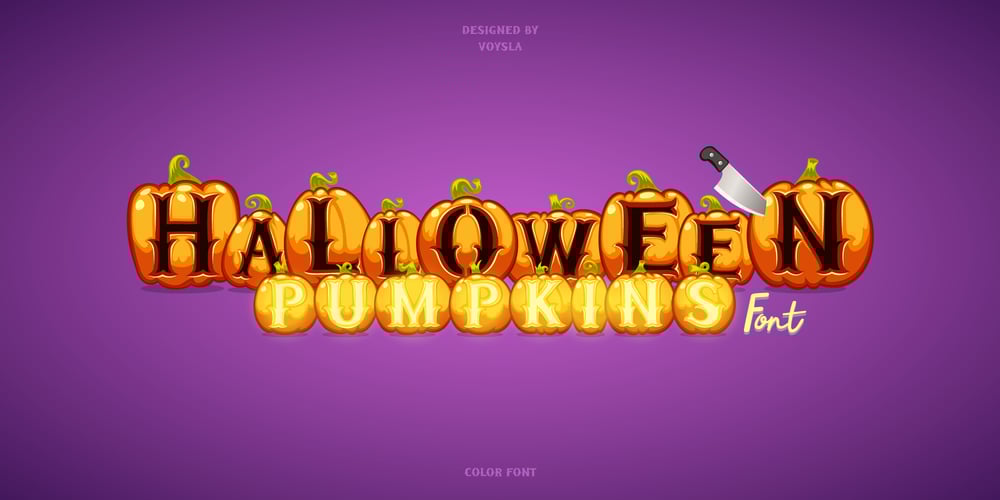
Halloween Pumpkins Font Family was designed by Viachaslau Vaitsenok and published by Voysla. Halloween Pumpkins contains 6 styles and family package options. Hey! Happy Halloween Pumpkins! πππThis is a family of colored fonts “Halloween Pumpkins” in four styles (regular, glowing with and without Halloween pumpkins).PLEASE NOTE that in order to work with color fonts, you will need one of the listed applications – Photoshop CC 2017, Illustrator CC 2018, or Procreate 4.3 or later. It is also supported by some web browsers and text editors. You can read more about color fonts at the link – http://www.colorfonts.wtfThe font supports Latin letters, all the necessary symbols, numbers and a set of multilingual characters. There are also additional glyphs of various pumpkins, a knife and decorative elements. They are great for Halloween designs.In addition to the color font family, the set includes a monochrome font “Halloween Carved” without Halloween pumpkins in two styles.